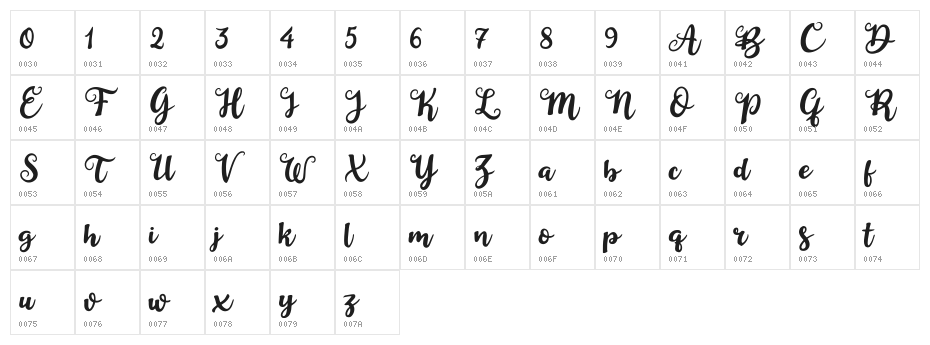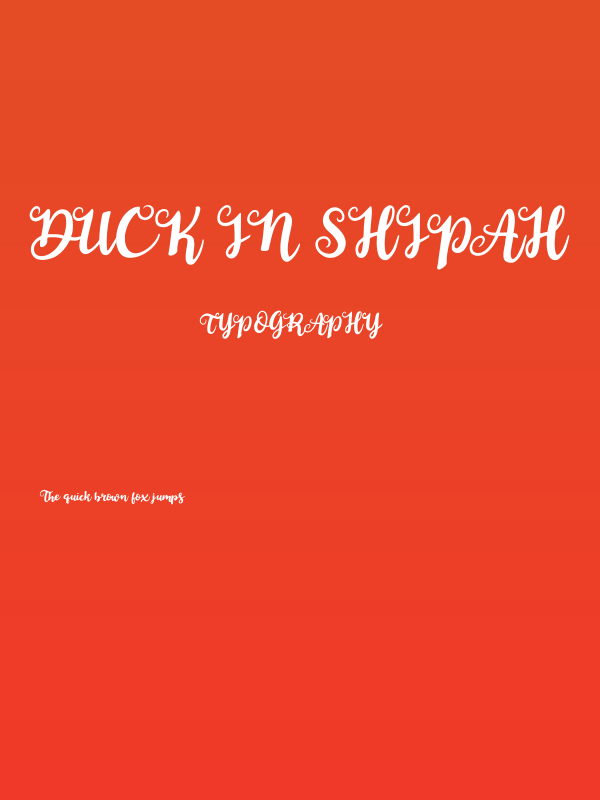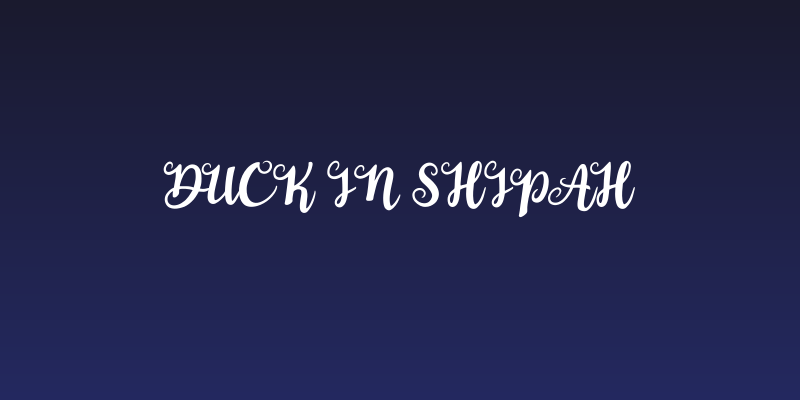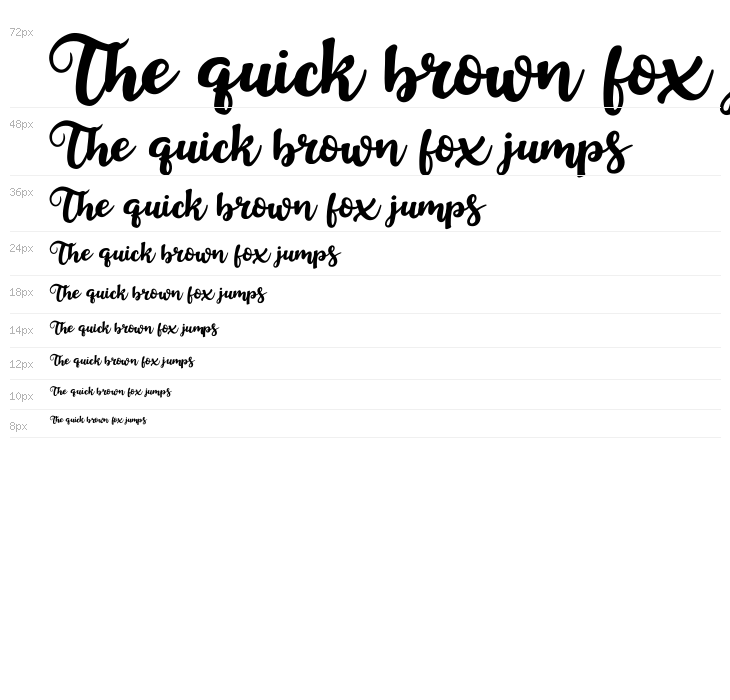
Duck in Shipah Font
Duck in Shipah Description
This font features a lively and expressive script style, characterized by its flowing, cursive letterforms and elegant swashes. The uppercase letters are adorned with decorative loops and flourishes, adding a touch of sophistication and flair. The lowercase letters maintain a consistent rhythm and are slightly more restrained, providing a nice balance to the overall design. The numerals are bold and clear, ensuring readability while maintaining the font's artistic style. Special characters like the ampersand and question mark are creatively styled, enhancing the font's playful and dynamic appearance. This font is perfect for projects that require a personal and artistic touch, such as invitations, greeting cards, and branding materials.